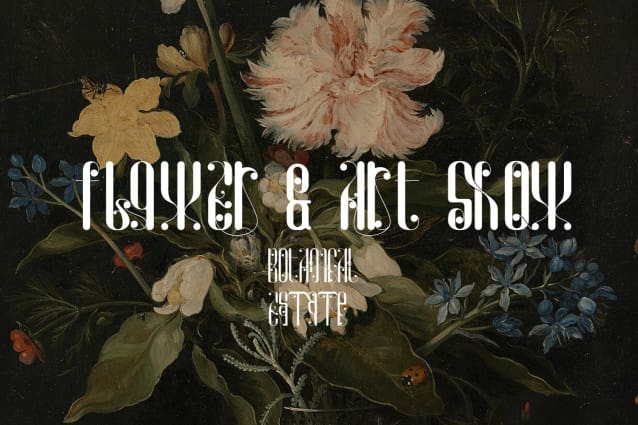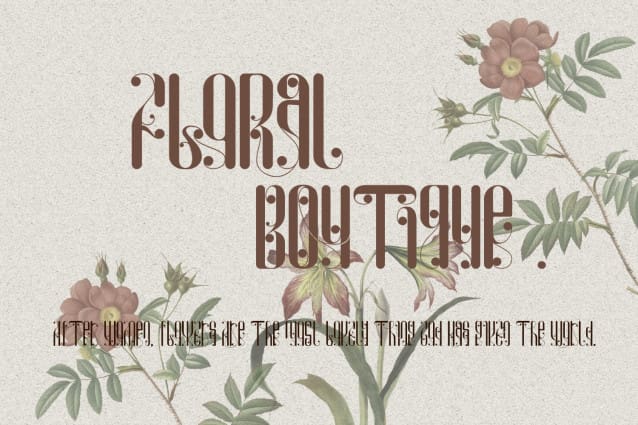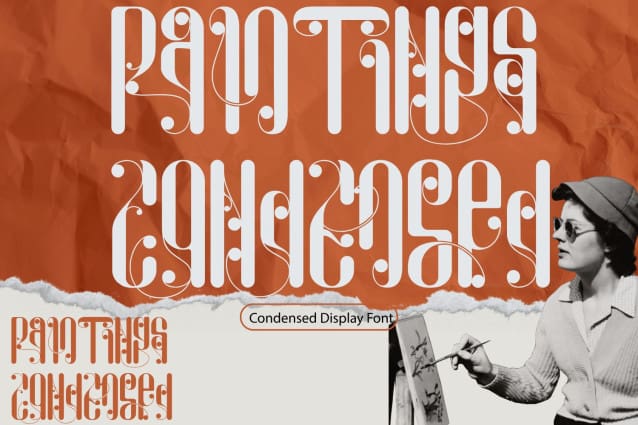
Paintings Condensed Font
Paintings Condensed Font is a condensed serif typeface with lots of character. The idea behind it’s was to combine classic hand-drawn lettering elements with functional type – creating a font that is not your run of the mill display typeface. It’s was designed with a synthesis of the future and the past. While it carries sharper and futuristic lines than the future, it also incorporates the organic structure of the past.
Paintings Condensed Font was built with OpenType features and includes 100 ligatures, alternate, numbers, punctuation, and it also supports other languages.
AC AD AL AN AR AS AT AU AV BE CA CE CH CO CT DE DI EA EC ED EE EL EM EN EP ER ES ET FE FO FR GE HA HE HI HO IE IC IL IN IO IR IS IT JU KE LA LE LI LL LO LY MA ME MI NC ND NE NG NO NT NS OC OF OM ON OO OP OR OT OU OW PA PR RA RD RE RI RO RS RT SE SH SI SO SS ST TA TE TH TI TO TR TT UM UN UR VE WI WO